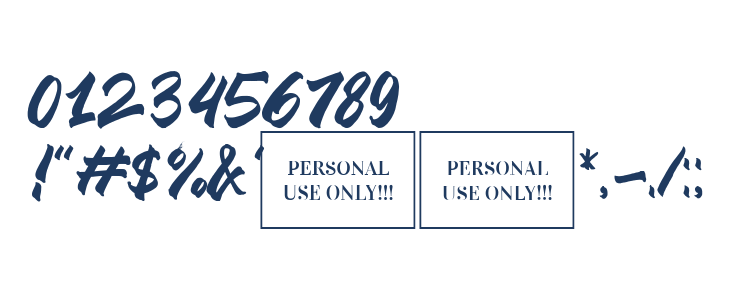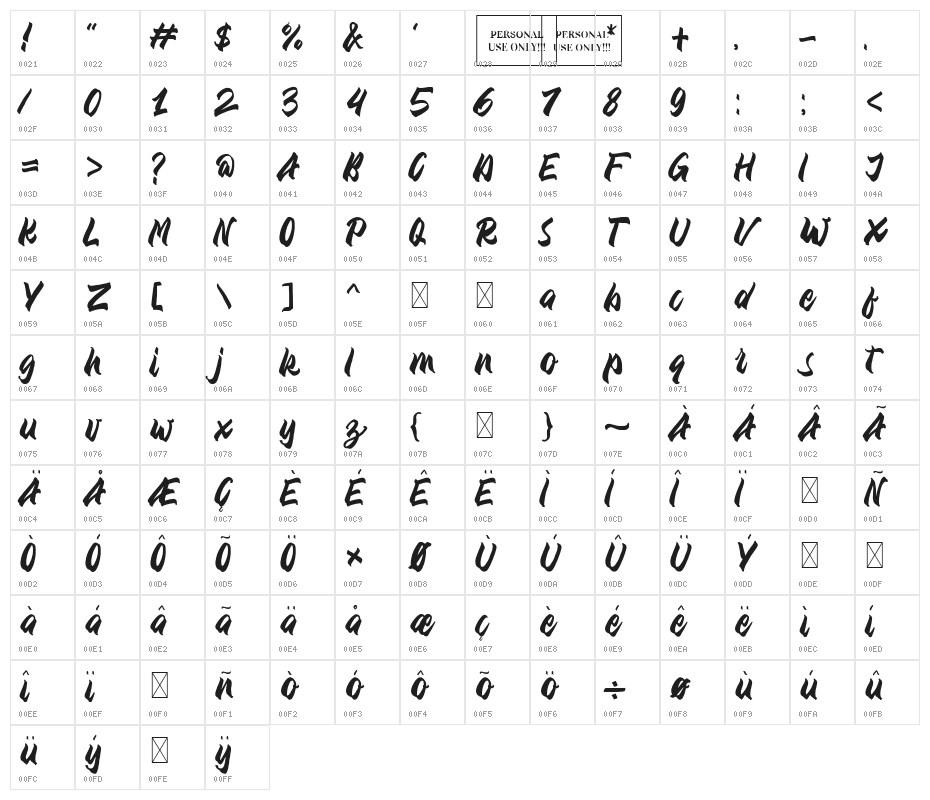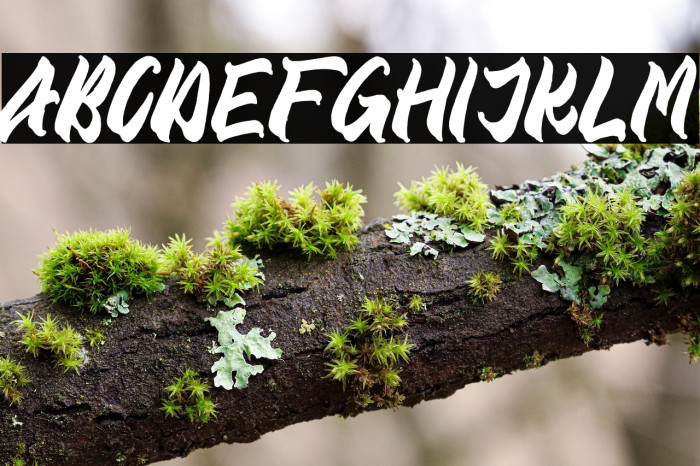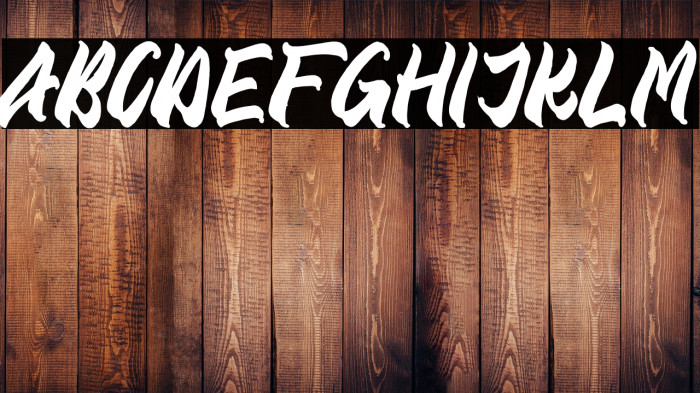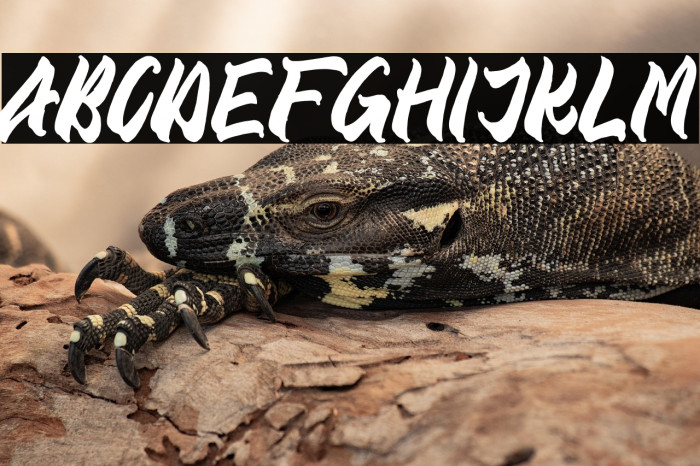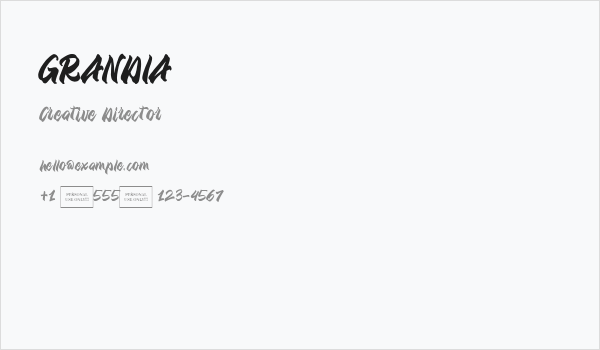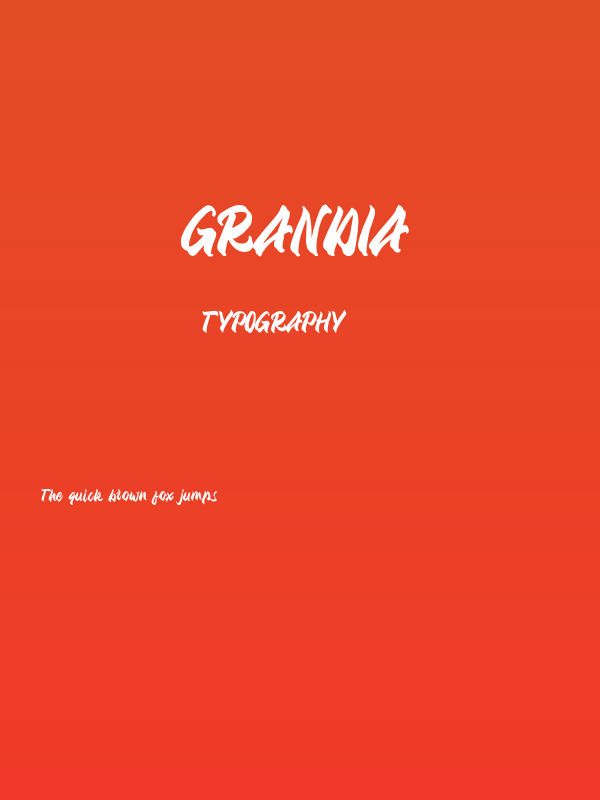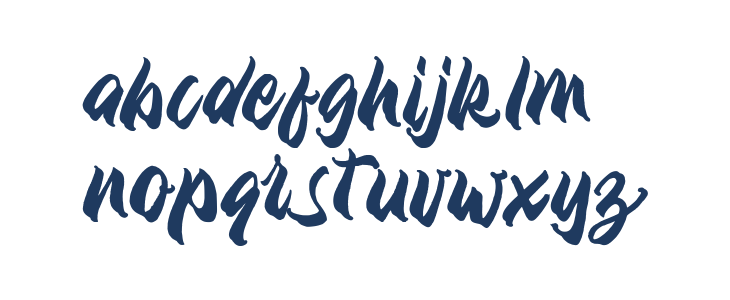
GRANDIA Font
GRANDIA Description
This font exhibits a bold, expressive style with a handwritten appearance. The letters are fluid and dynamic, featuring thick strokes that vary in width, giving it a lively and energetic feel. The uppercase and lowercase letters maintain a consistent style, with a slight slant that adds to the casual, informal look. The numbers and special characters follow the same design principles, ensuring uniformity across all glyphs. This font's brush-like strokes and organic shapes make it stand out, ideal for projects that require a personal touch or artistic flair.